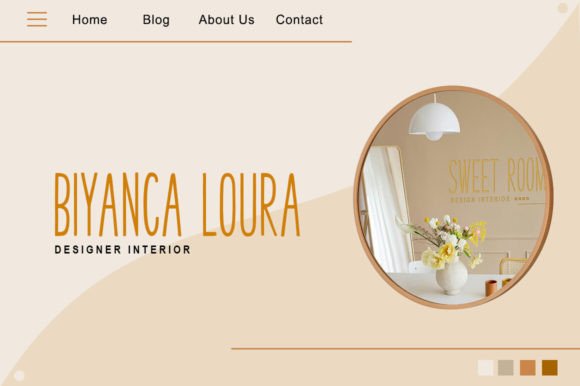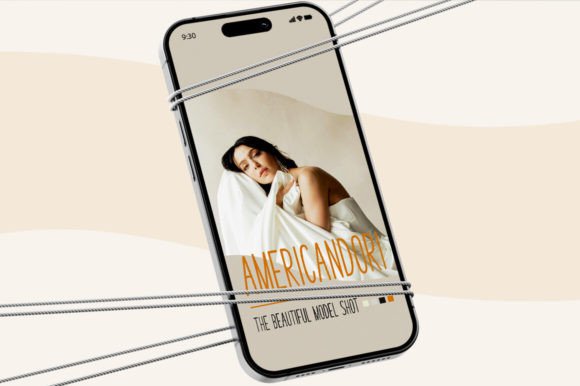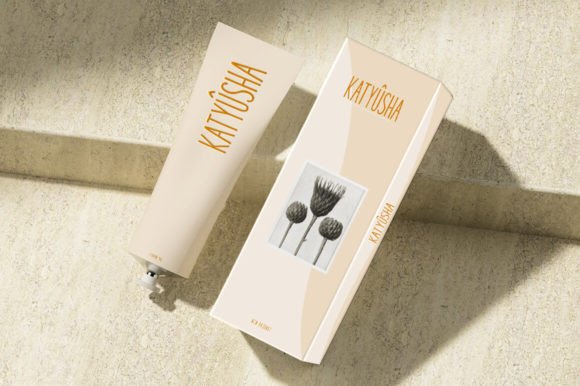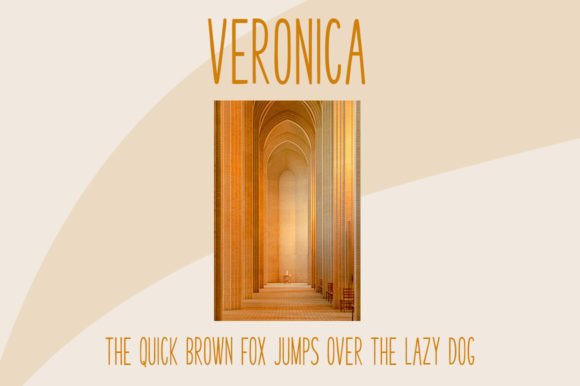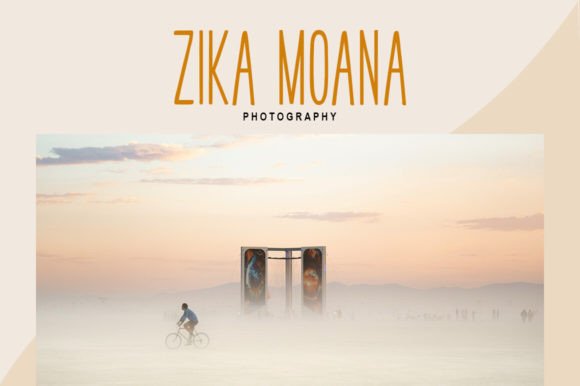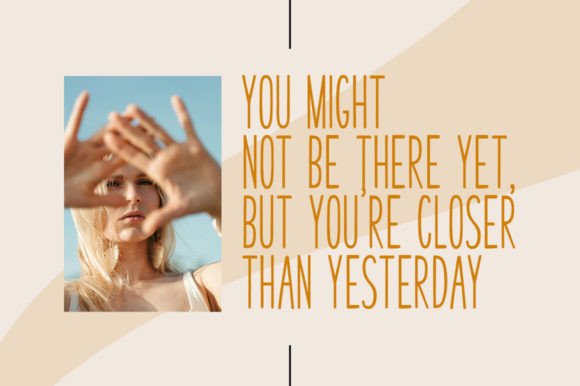
Introducing Chrystina Font: The Epitome of Modern Elegance
In the realm of typography, few fonts manage to strike a balance between modernity, elegance, and readability. Chrystina Font, a modern and elegant monoline display font, is one such typographic marvel. Designed with the utmost care and precision, Chrystina offers a clean, minimalist look that is both eye-catching and effortlessly readable, making it an ideal choice for a wide array of design applications.
The Design Philosophy Behind Chrystina
Chrystina’s design is rooted in the principles of simplicity and uniformity. Each letter is crafted with smooth, consistent strokes that epitomize the monoline aesthetic. This uniformity in stroke thickness lends Chrystina its distinctive clean and minimalist appearance, which is versatile enough to be used in various visual contexts, ranging from formal branding and logos to more casual social media posts and invitations.
Key Features of Chrystina Font
- Monoline Aesthetic: Chrystina’s defining feature is its monoline design, characterized by uniform thickness in its strokes. This gives the font a sleek and modern look.
- Smooth and Consistent Strokes: The font’s smooth and consistent strokes contribute to its elegant appearance, making it stand out in any design.
- Clean and Minimalist: Despite its elegance, Chrystina maintains a clean and minimalist look, ensuring it does not overwhelm the senses.
- Professional yet Friendly: Chrystina adds a professional touch to any design while still conveying a soft and friendly character, making it suitable for a wide range of audiences.
- Versatility: Its balanced and easily readable feel makes Chrystina versatile for use in various design purposes, including branding, invitations, logos, and social media graphics.
Applications of Chrystina Font
The versatility of Chrystina Font makes it an excellent choice for numerous design applications. Here are some of the areas where Chrystina truly shines:
- Branding: Chrystina can help establish a modern and sophisticated brand identity, perfect for companies looking to convey elegance and professionalism.
- Invitations: Whether it’s a wedding invitation, a birthday party invite, or any other event, Chrystina adds a touch of class and sophistication.
- Logos: For businesses aiming for a modern and clean logo, Chrystina provides an excellent foundation.
- Social Media Graphics: Stand out on social media platforms with Chrystina’s unique and elegant style, perfect for post titles, banners, and more.
Why Choose Chrystina Font?
In a world where first impressions are crucial, and the visual appeal of content significantly influences engagement, choosing the right font is more important than ever. Chrystina Font stands out from the crowd for several reasons:
- Unique yet Readable: It offers a unique blend of modern elegance and readability, making it perfect for designs that need to stand out yet remain clear.
- Time-Saving: Its versatility means you can use Chrystina across various projects, saving time and ensuring consistency in your brand’s visual identity.
- Emotional Connection: The soft and friendly character of Chrystina helps in creating an emotional connection with the audience, making your designs more relatable.
Chrystina Font is more than just a typeface; it’s a design statement that combines modernity, elegance, and readability in a seamless manner. Whether you’re a designer looking for a versatile font for your next project, a craftsperson aiming to add a professional touch to your creations, or a business seeking to elevate your brand’s visual identity, Chrystina is an excellent choice. Its smooth, consistent strokes and monoline aesthetic make it not just a font but a tool for creating visually stunning and effective designs. Embrace Chrystina Font in your design endeavors and experience the power of elegant simplicity.